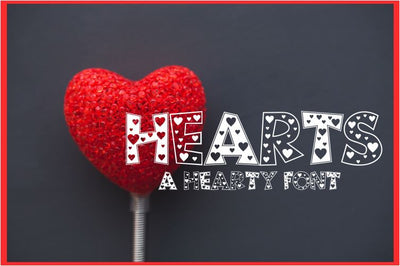
Hearts Font | An All Caps Fun Font Full of Hearts
This is a fun all caps font!
The upper case letters are a solid fill and the lower case letters are an outline--both are filled in with hearts. Great to mix cases for a fun look!
Great for names & Monograms!